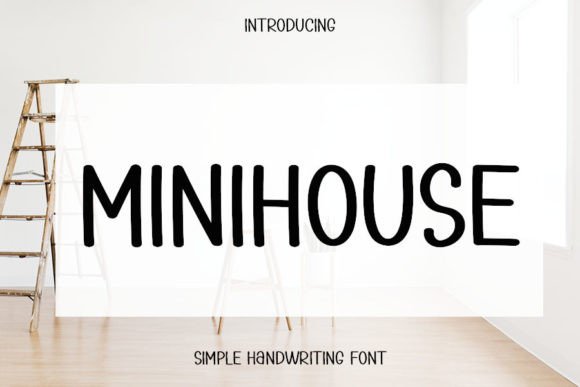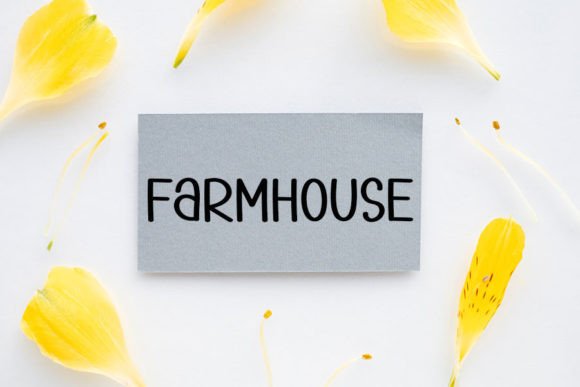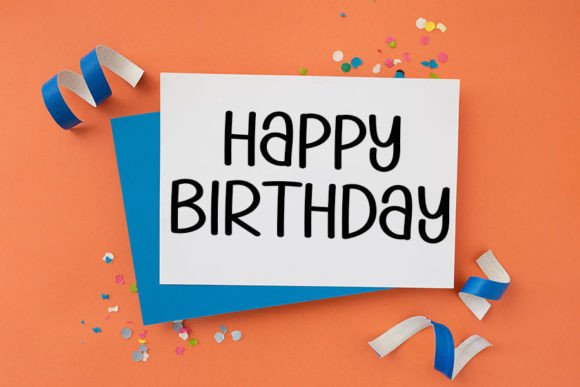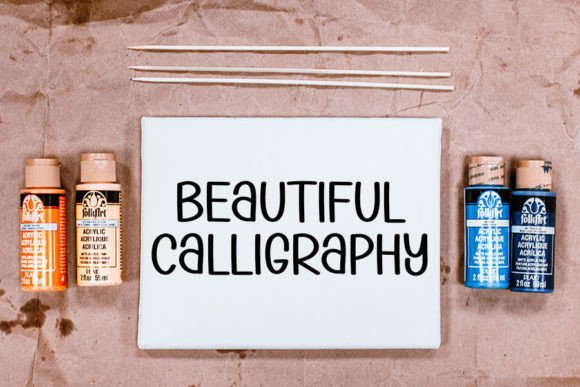
About Minihouse Font
**Minihouse: A Sweet and Beautiful Handwritten Font for a Luxurious Touch**
Minihouse is a font that exudes sweetness and beauty, with characters that gracefully dance along the baseline. This font adds a touch of luxury and sophistication to your design projects, making it the ideal choice for creating captivating and opulent designs.
The charm of Minihouse lies in its sweet and beautifully handwritten characters, meticulously crafted to convey a sense of beauty and authenticity. Each letter dances along the baseline, creating a sense of movement and grace that enhances your design projects with a touch of luxury.
This font’s versatility ensures it can adapt to various design contexts. You can use it to create opulent branding materials, elegant invitations, captivating social media posts, or any creative endeavor that demands a sense of sophistication and beauty.
In summary, Minihouse is more than just a font; it’s a source of sweetness and beauty that enhances your design projects. Its gracefully handwritten letters make it the perfect choice for infusing luxury and elegance into your work. With Minihouse, your creative projects will shine with a distinct and opulent charm. Choose Minihouse, and let your designs captivate with its sweet and beautiful presence.